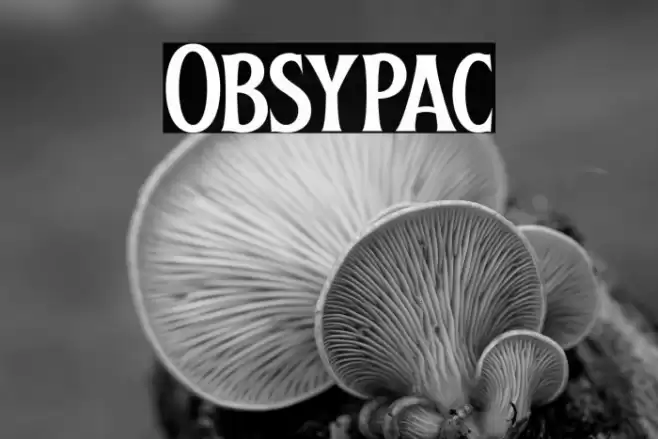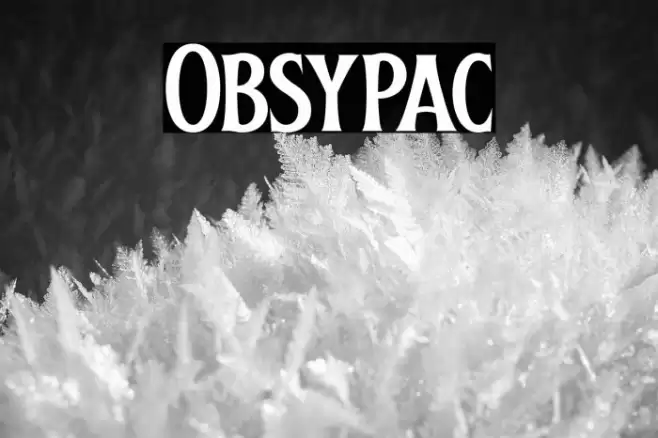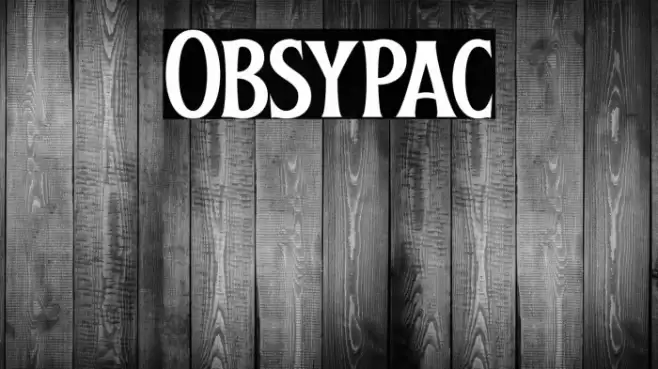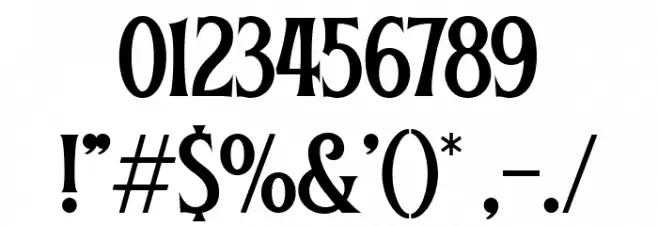
Obsypac Font
Obsypac Description
This font features a bold and dynamic style with a distinct flair, characterized by its sharp, angular serifs and high contrast between thick and thin strokes. The uppercase letters exhibit a strong presence, while the lowercase letters maintain a consistent rhythm, making it suitable for impactful headlines. The numbers are equally bold, ensuring readability and emphasis. Special characters are designed with the same boldness, adding to the font's cohesive appearance. The overall design is both modern and slightly vintage, offering versatility in various design contexts.
A bold, high-contrast serif font with angular serifs and a dynamic style from Regular fonts.
- Proposed Projects: Ideal for branding, poster design, book covers, and any project requiring a strong, impactful typeface.
- Overall Style: Modern, Vintage